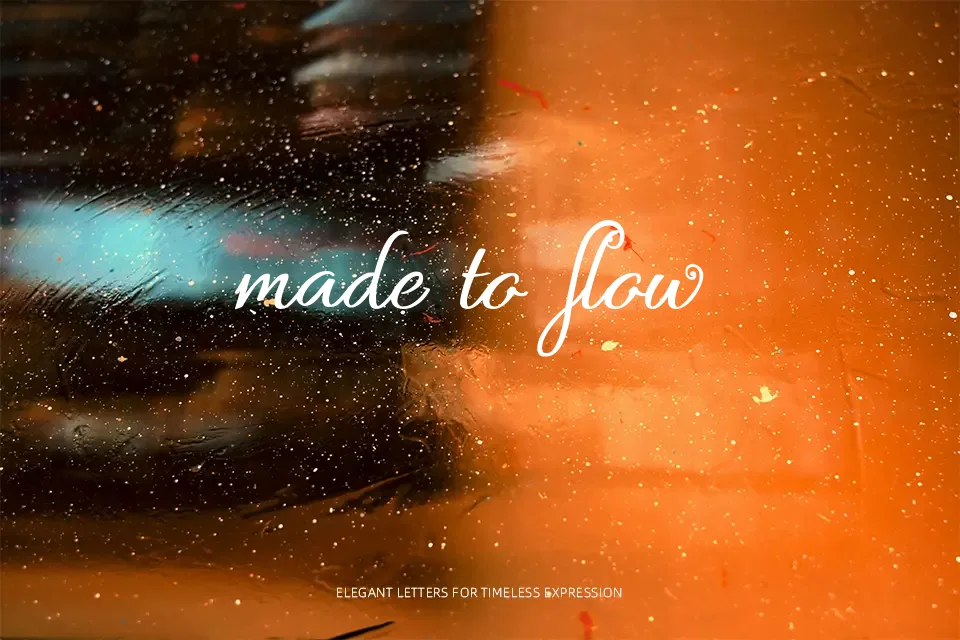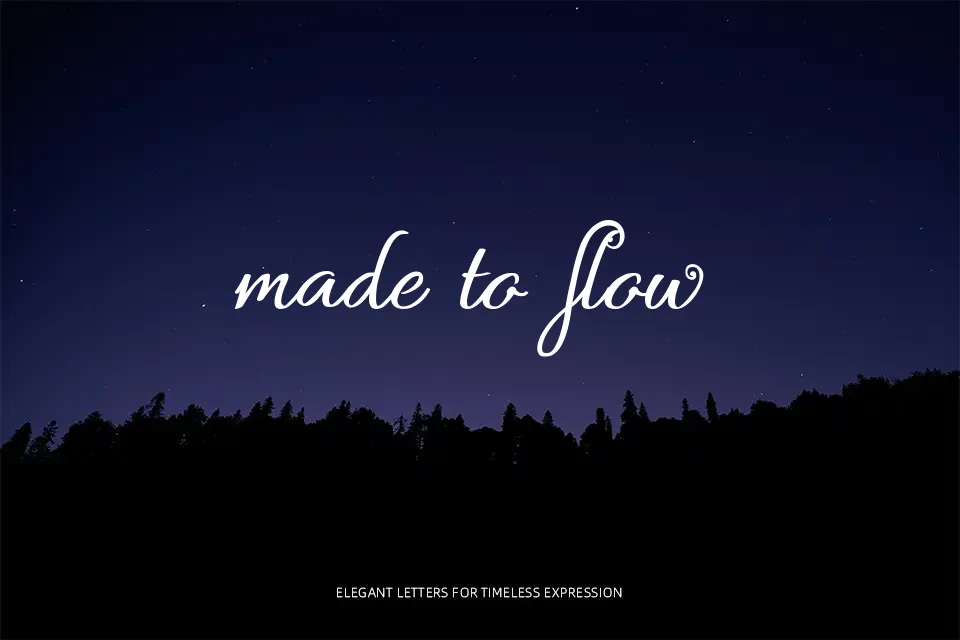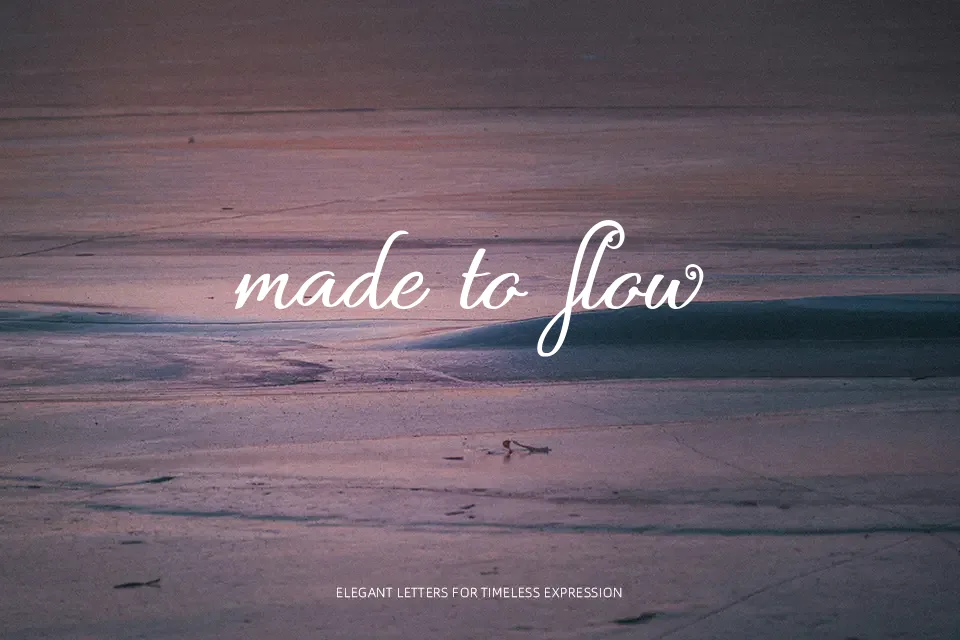
Bykars Font
Bykars is a flowing script with looping terminals, generous curves, and a slightly bouncy baseline that gives text a playful, handwritten feel. Strokes are relatively even in weight, with ornate capitals and tighter counters that add a decorative, almost sugary look on screen and in print. It works well for names in wedding invitations, branding for desserts or handmade goods, and short phrases on posters or social graphics where a romantic tone matters. In longer sentences or small body sizes, the curls can feel busy and reduce legibility, so it is better reserved for short display text rather than dense copy.
romantic logo wordmarks and signatures
wedding invitations and event titles
packaging for sweets, gifts, or handmade crafts
social media quotes and name overlays
long paragraphs or body copy at small sizes
formal corporate branding and serious documents
highly technical interfaces or UI text
Perfect for branding, invitation, and logo, with a creative and decorative style.